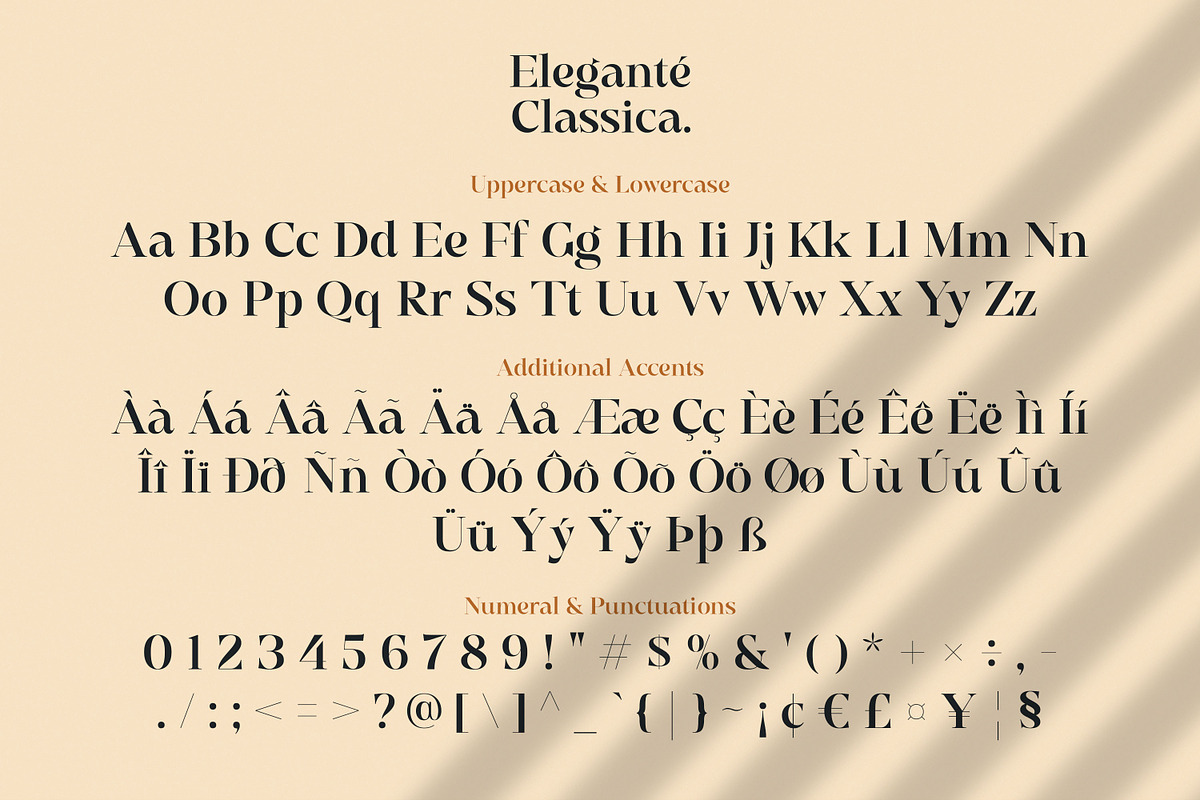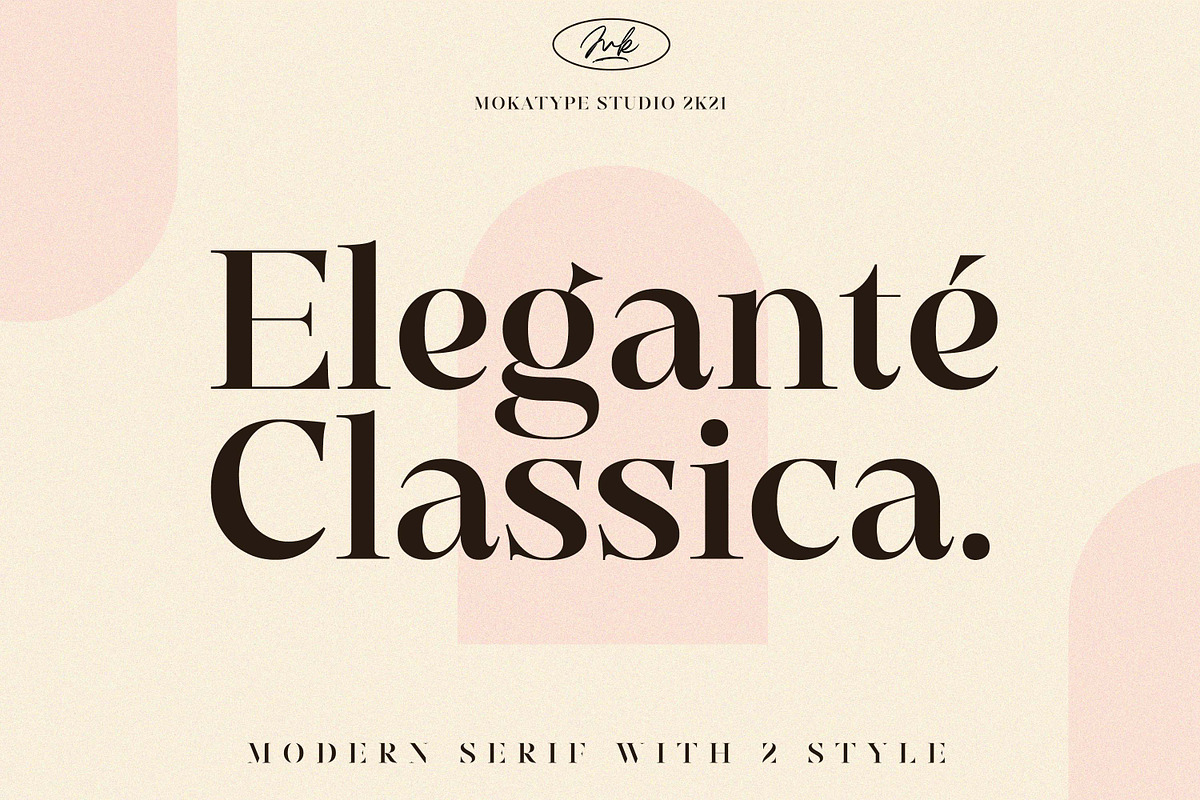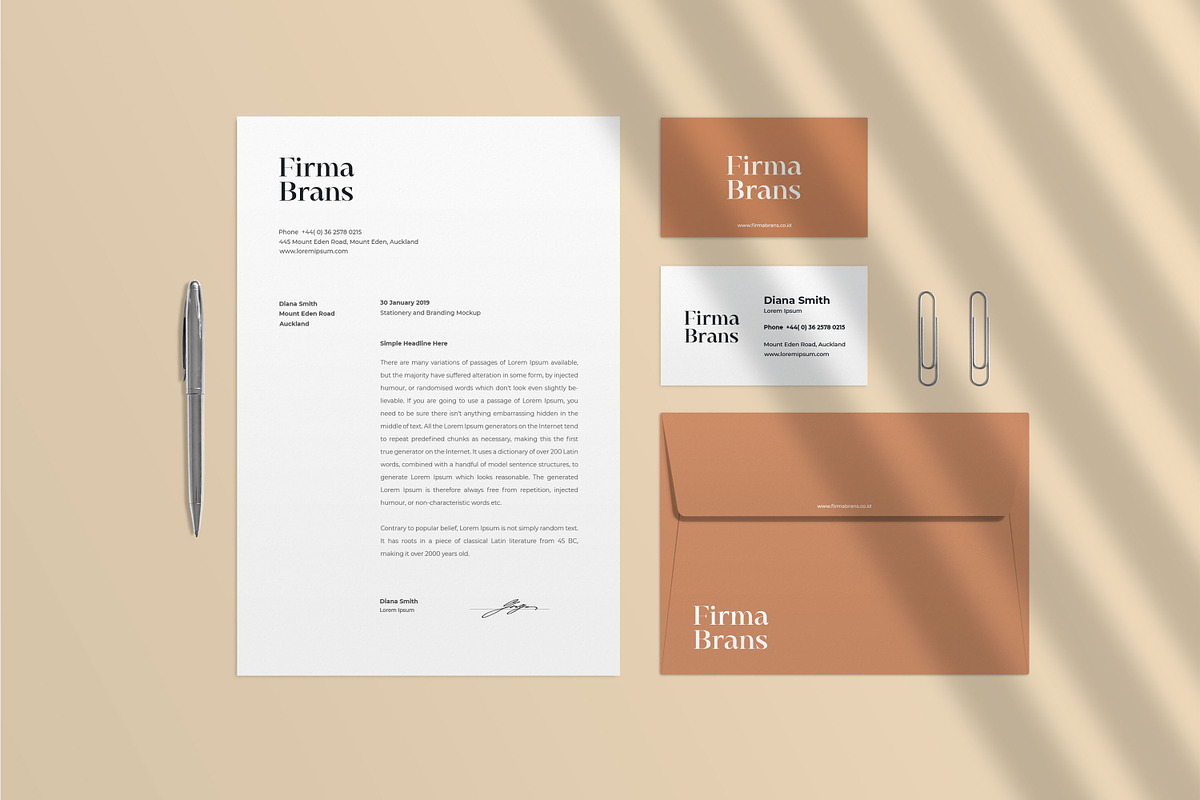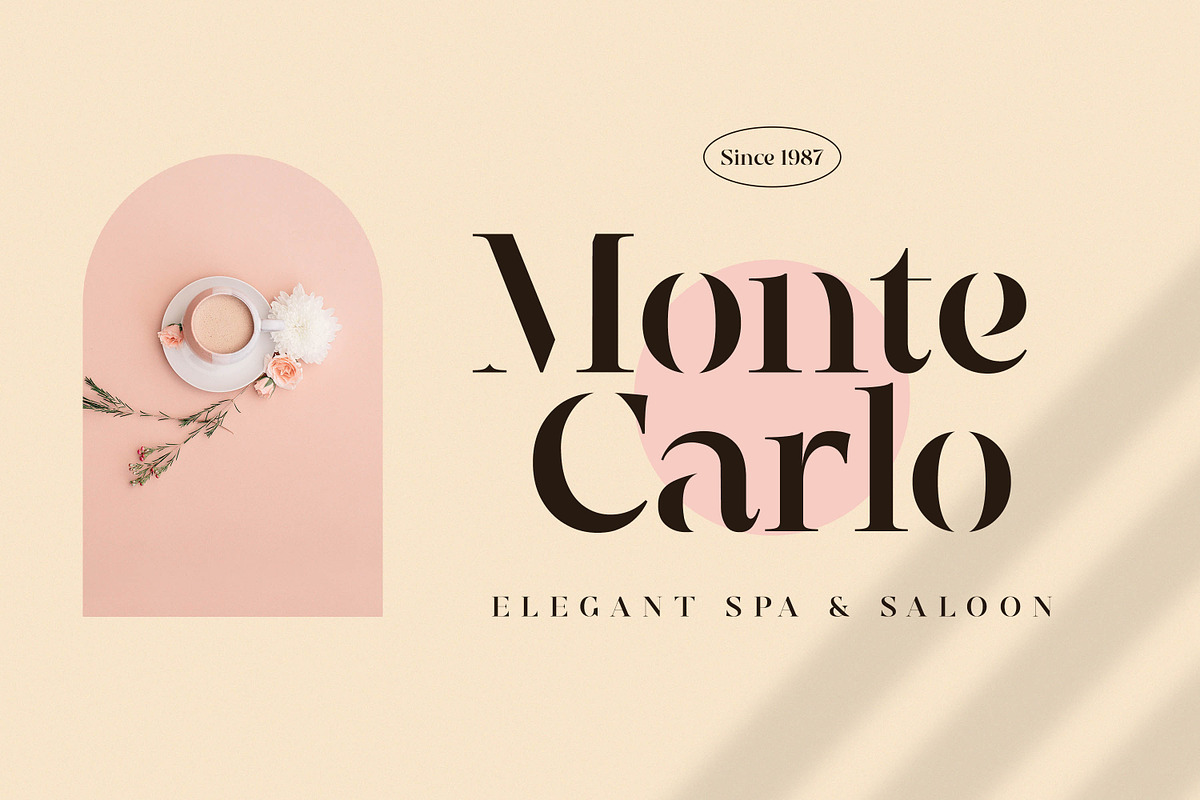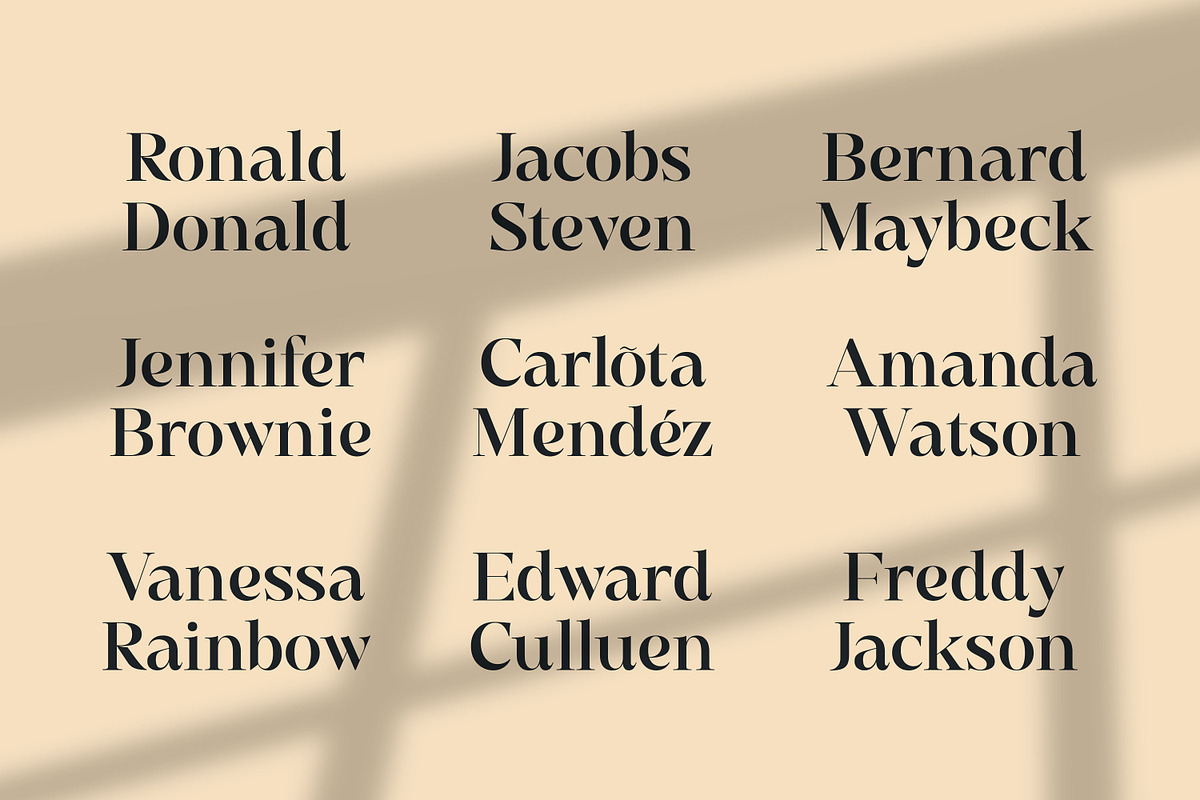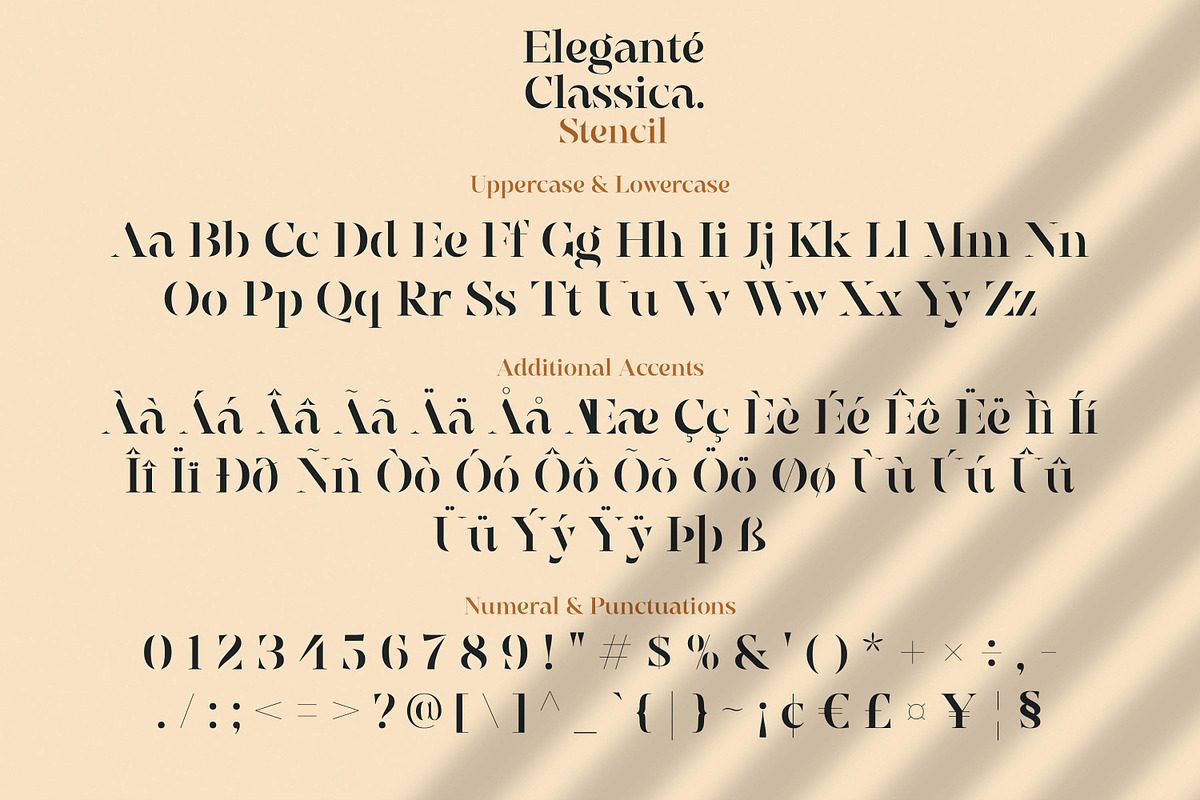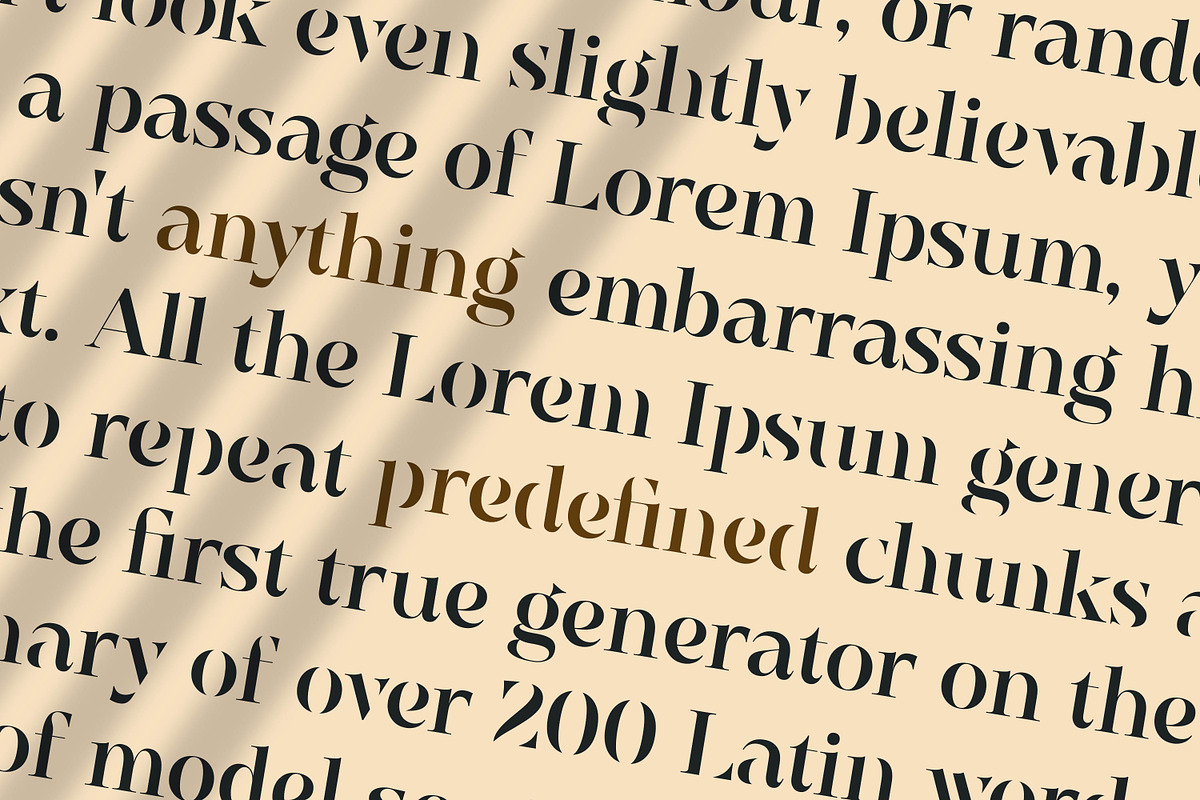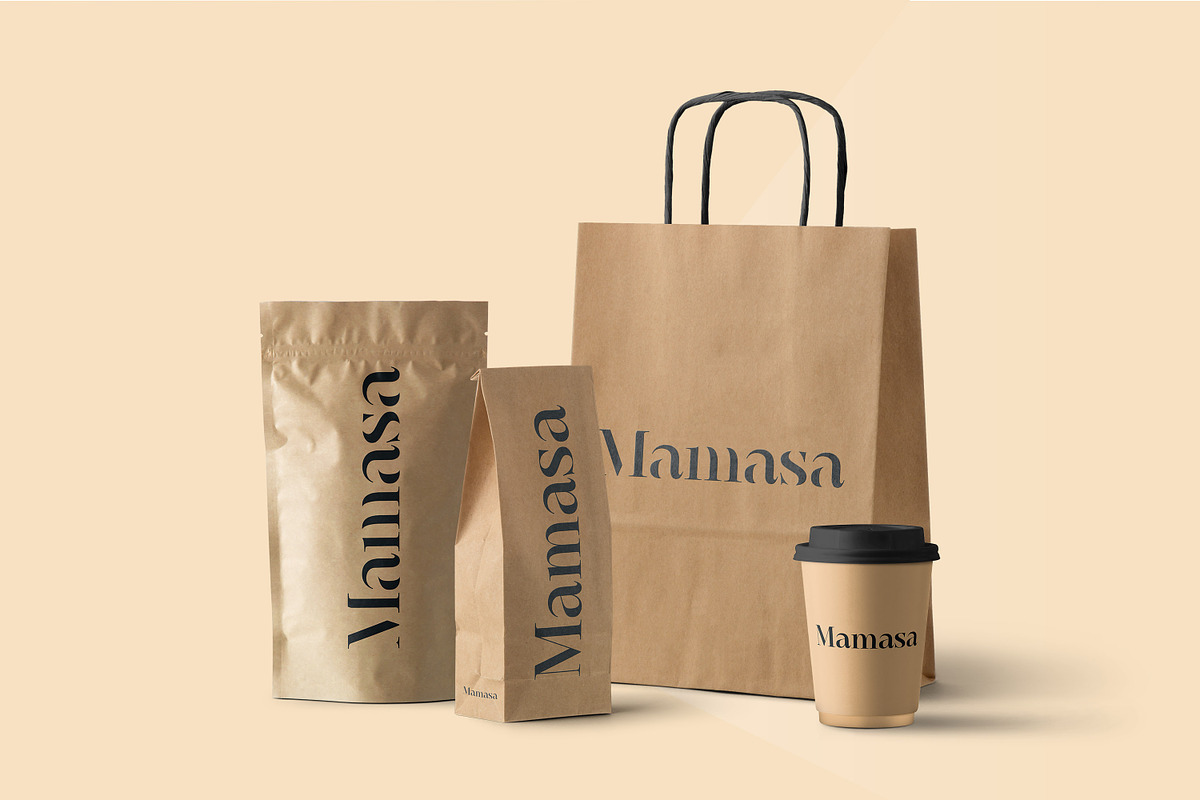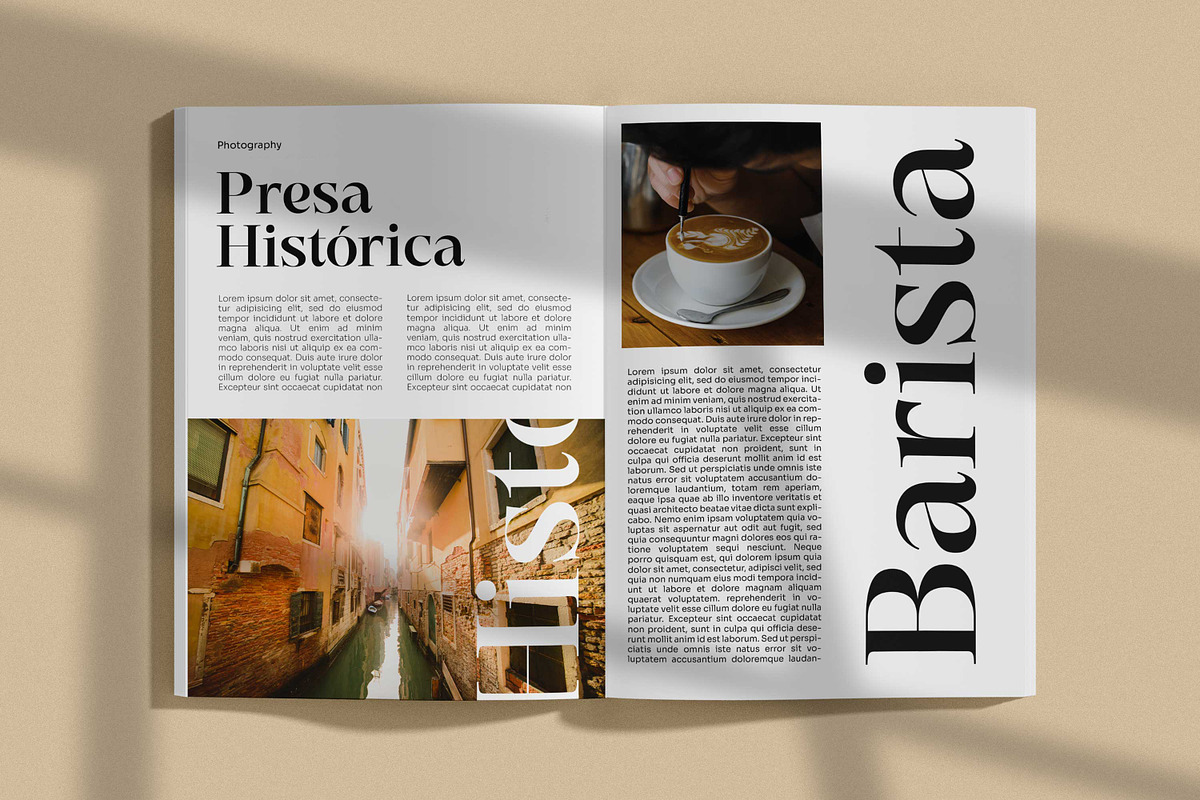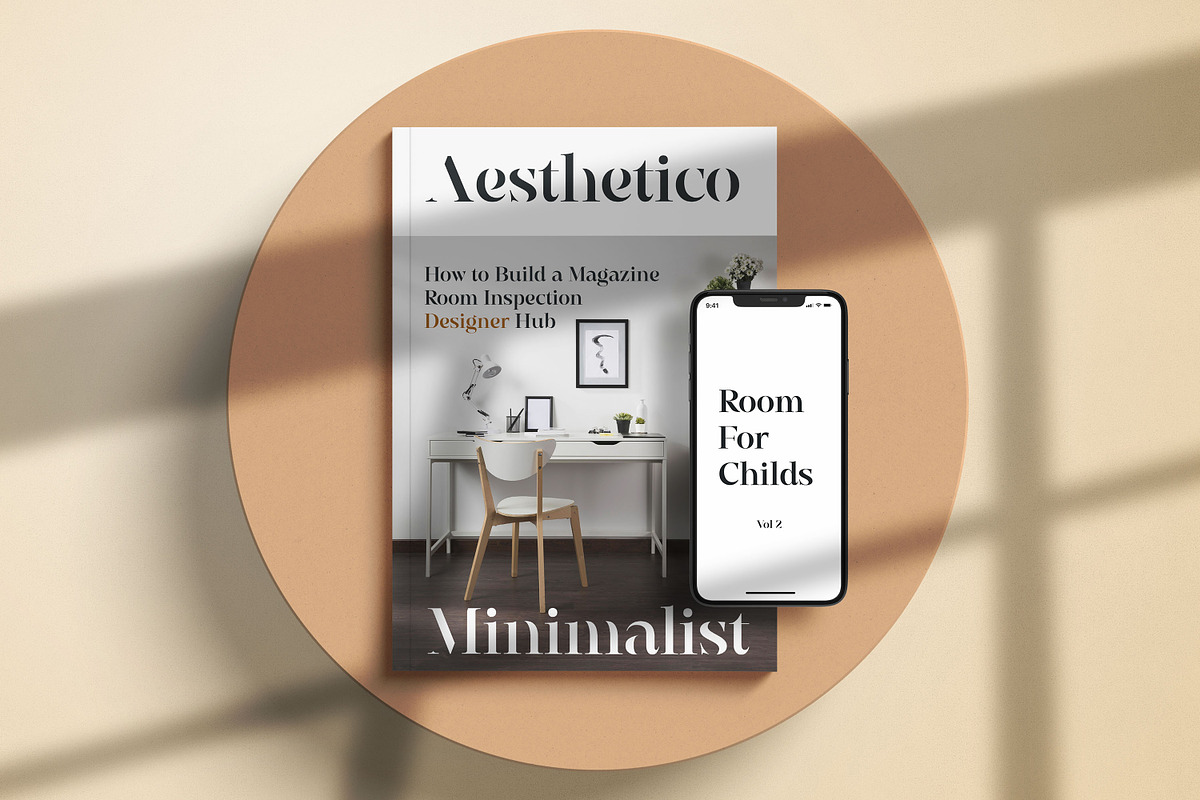
Elegante Classica - Classic Serif
Hello Introducing, Elegante Classica - Luxurious Serif Display is an elegant, inspired by the famous minimalist logo, perfect for the purposes of designing templates, brochures, videos, advertising branding, logos, and more. Perfect for adding a unique twist to word-mark logos, monograms or pull quotes.